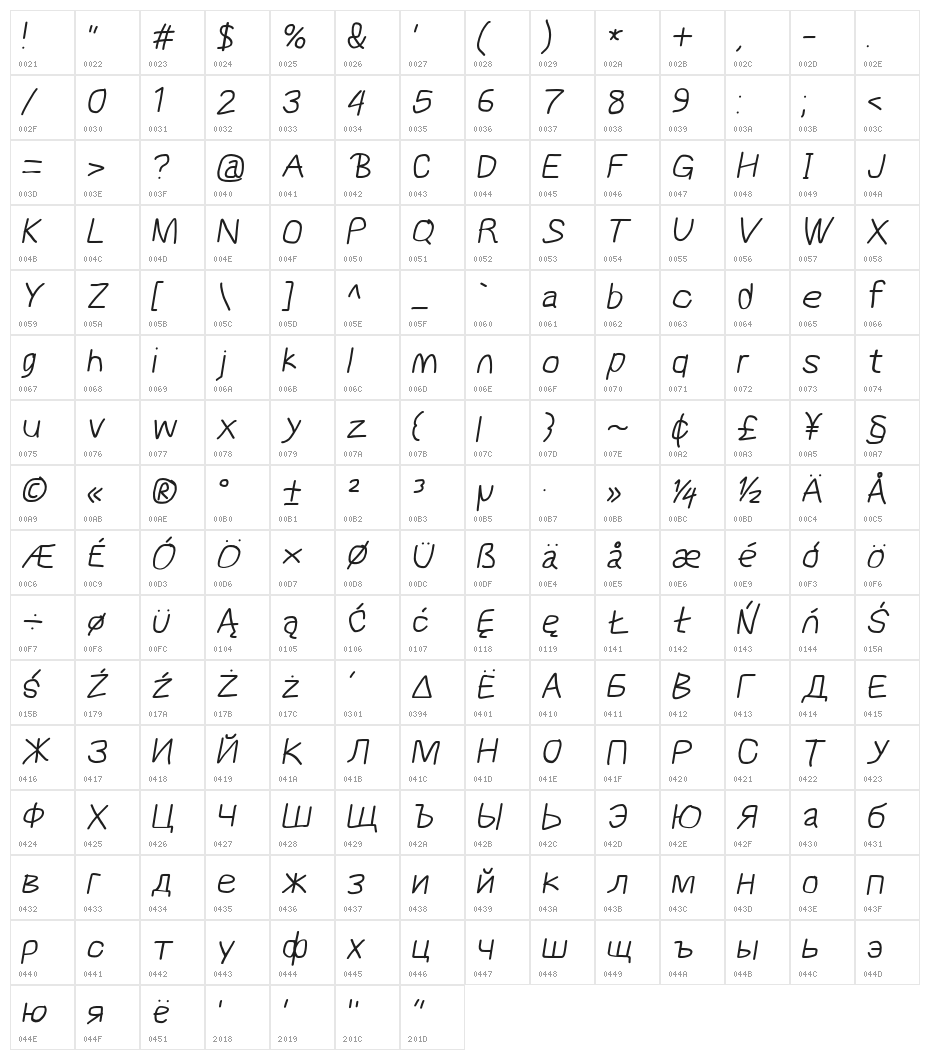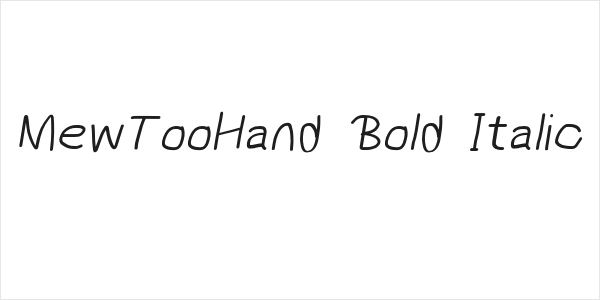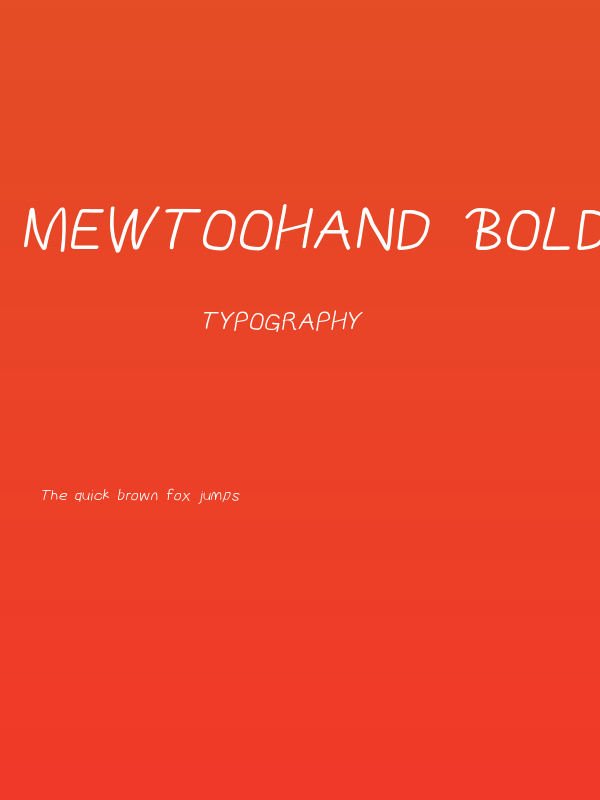
MewTooHand Bold Italic Font
MewTooHand Bold Italic Description
This font features a playful and casual handwritten style, characterized by its smooth, flowing lines and slightly slanted appearance. The letters are bold and italicized, giving them a dynamic and energetic feel. The uppercase and lowercase letters maintain a consistent style, with rounded edges and a friendly, approachable look. The numerals and special characters are designed to match the overall aesthetic, ensuring a cohesive appearance across all text. This font is ideal for projects that require a personal touch or a sense of informality.
| Proposed Projects | Ideal for greeting cards, personal branding, social media graphics, and informal invitations. |